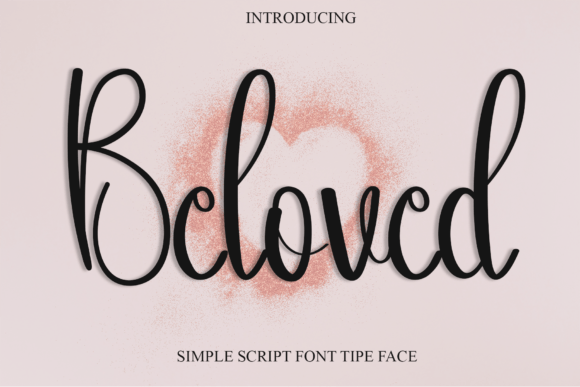
When Words Become Art
Remember the last time you spent hours crafting the perfect social media post, pouring your heart and soul into the design, and carefully selecting the perfect font to convey your message? For many of us, that moment is a familiar feeling – a mix of excitement and nervousness as we share our creativity with the world. And what’s at the heart of that perfect post? A font that speaks to our audience and leaves a lasting impression.
Enter the Beloved Font, a casual and creative typeface that exudes warmth and friendliness. This charming font is designed to add a fun and unique touch to any design, making it perfect for personal projects, invitations, and social media graphics. For designers, the Beloved Font is a valuable addition to their toolkit, offering a versatile and approachable feel that’s sure to delight audiences.
Beloved Font Key Features
- Font Family: Beloved Font is a unique, hand-drawn script font with a romantic and elegant feel.
- Character Set: The font includes over 500 characters, including uppercase and lowercase letters, numbers, and punctuation marks.
- Unique Characteristics: Beloved Font features intricate, hand-drawn details and subtle texture, giving it a distinctive and eye-catching appearance.
Designer Review: Beloved Font
As a designer, I’m always on the lookout for unique and captivating fonts to elevate my projects. I recently had the chance to work with the “Beloved Font”, and here’s my honest take on it.
- Beautiful Script: The Beloved Font has a stunning script style that adds a touch of elegance to any design. Its flowing lines and curves make it perfect for titles, headings, and other display typography.
- High-Quality Typography: The font is well-designed, with a clear and readable texture that works well for both digital and print media.
- Great for Romantic and Whimsical Projects: The Beloved Font’s aesthetic is perfect for projects that require a touch of romance, whimsy, or playfulness.
- Limited Character Set: The Beloved Font has a relatively small character set, which may not be suitable for longer blocks of text or projects that require a wide range of characters.
- Not Suitable for Formal Projects: While the font is beautiful, it may not be the best choice for formal or professional projects, as it can come across as too playful or informal.
Overall, the Beloved Font is a beautiful addition to any designer’s toolkit. While it may have some limitations, its unique style and high-quality typography make it a great choice for projects that require a touch of romance or whimsy.
Beloved Font is ideal for creating elegant and sophisticated designs. Use it for:
- Luxury brand logos and packaging.
- High-end business cards and brochures.
Remember to adjust the font size and style to suit your design needs.
Alternatives to “Beloved Font” for Designers
Playfair Display is an elegant and luxurious serif font, perfect for creating high-end designs. It is ideal for use in headings, titles, and other text elements where a touch of sophistication is required. Compared to Beloved Font, Playfair Display has a more refined and classical feel, making it suitable for luxury brands, high-end fashion, and fine dining.
Montserrat is a modern sans-serif font, great for creating clean and minimalist designs. It is perfect for use in body text, captions, and other elements where readability is key. Compared to Beloved Font, Montserrat is more geometric and industrial in feel, making it suitable for tech, fashion, and urban brands.
Lato is a clean and modern sans-serif font, ideal for creating professional and elegant designs. It is perfect for use in body text, headings, and other elements where a touch of sophistication is required. Compared to Beloved Font, Lato has a more refined and polished feel, making it suitable for corporate, financial, and educational brands.